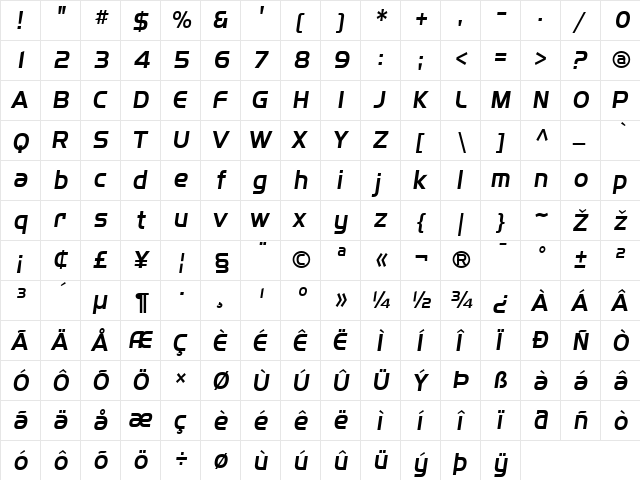
SF Fourche Italic
Design Context for SF Fourche Typeface
SF Fourche is a composed and adaptable typeface that performs quietly and consistently across a wide range of design contexts. The slanted form adds forward momentum and visual energy.
Pro Tip: Try SF Fourche for annotation and caption copy alongside an upright companion — the contrast in angle creates a dynamic but ordered typographic system.